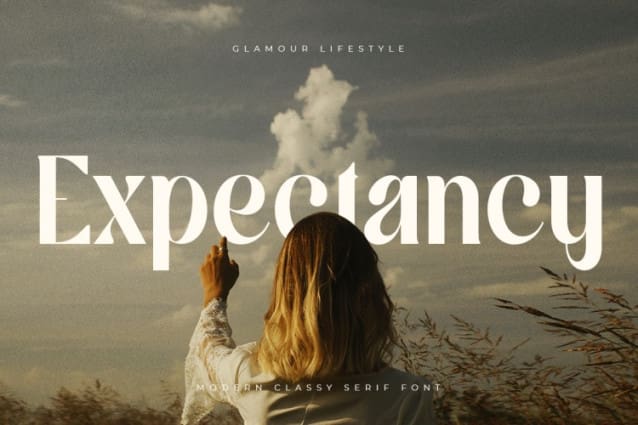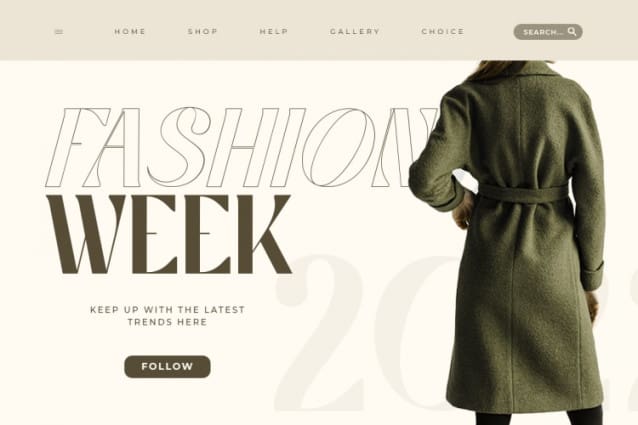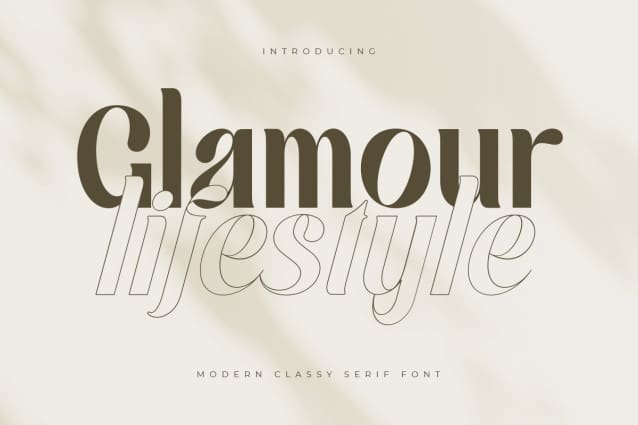
Glamour Lifestyle Font
Glamour Lifestyle Font A Modern Classy Serif Font that we created special for elegant and Fashion branding needs that we created special for elegant branding needs, with extra ligature and alternates in unique shape will be ready to add value of your brand. It so nice to leverage designer or product owner that need solutions to make their design look more classy and modern. And specially for this font, We prepared any ligatures, and any alternate characters to help you create unlimited variations for your creative needs.